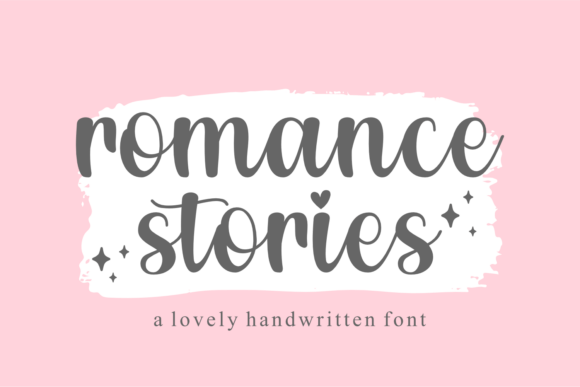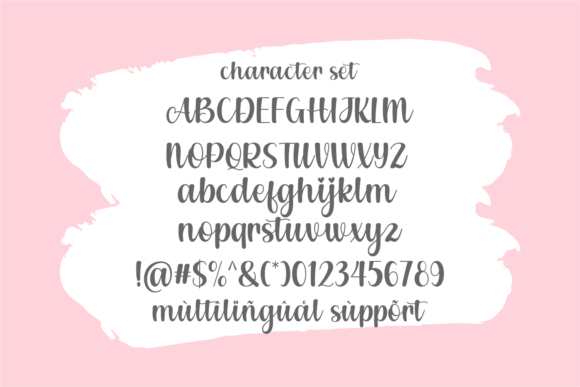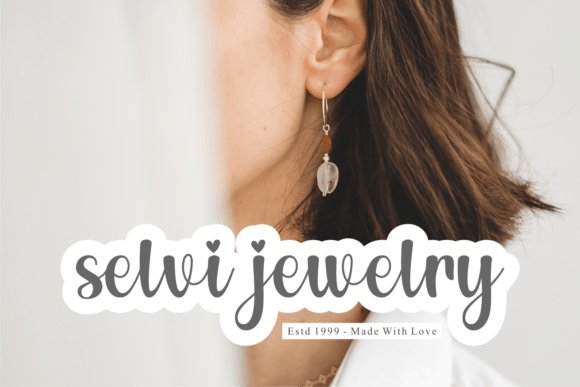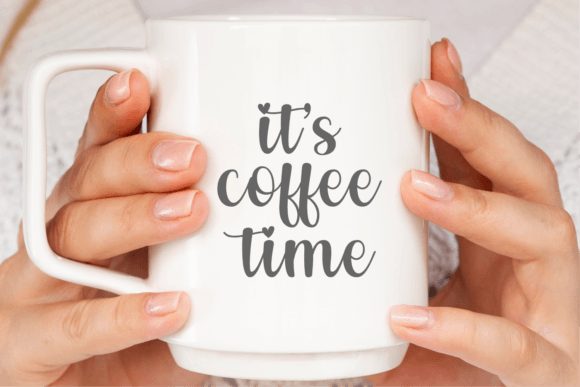
Romance Stories Font: Cute Handwritten Script for Cricut & DIY Projects
About the Romance Stories Font
Welcome to the world of Romance Stories Font, a typeface that will inspire your next great project. Romance Stories is a lovely handwritten font infused with charm and elegance. Its soft, flowing strokes and delicate heart accents make it perfect for romantic designs such as wedding invitations, Valentine’s Day cards, and love-themed branding. Add a touch of sweetness and sophistication to your creative projects with this delightful font.
Romance Stories excels in projects requiring a delicate touch: wedding stationery, branding for boutiques, or packaging for luxury beauty products. Its elegance shines in short text applications, such as headlines, quotes, and short taglines. However, its flowing script form is less suitable for body text or lengthy paragraphs, where readability would suffer.
Pairing it with a clean sans-serif like Lato or Open Sans provides a modern contrast, balancing the script’s softness. For a more classic feel, consider pairing it with a serif font like Garamond or Playfair Display. Avoid pairing with other highly decorative or overly whimsical fonts to prevent visual clutter.
The font’s core personality is undeniably elegant and romantic, conveying a sense of sophistication and timeless charm. It is best suited for brands aiming for a feminine, luxurious, or classic aesthetic.
Romance Stories Font Usage Examples
Romance Stories Font Example